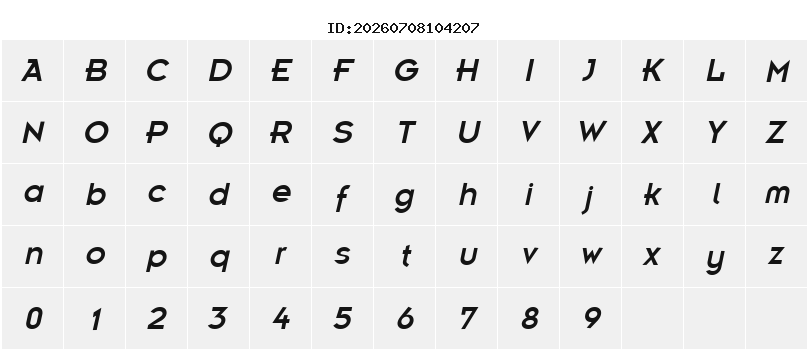
Dance Preview
• Font Name: Dance
• Font ID: Alts:Dance Italic
• Full Font Name: Dance Italic
• PostScript Name: Dance Italic
About Dance.ttf
Dance.ttf is a modern, elegant sans-serif font designed for ultimate readability and visual harmony. Perfect for branding, headlines, web design, and print materials.